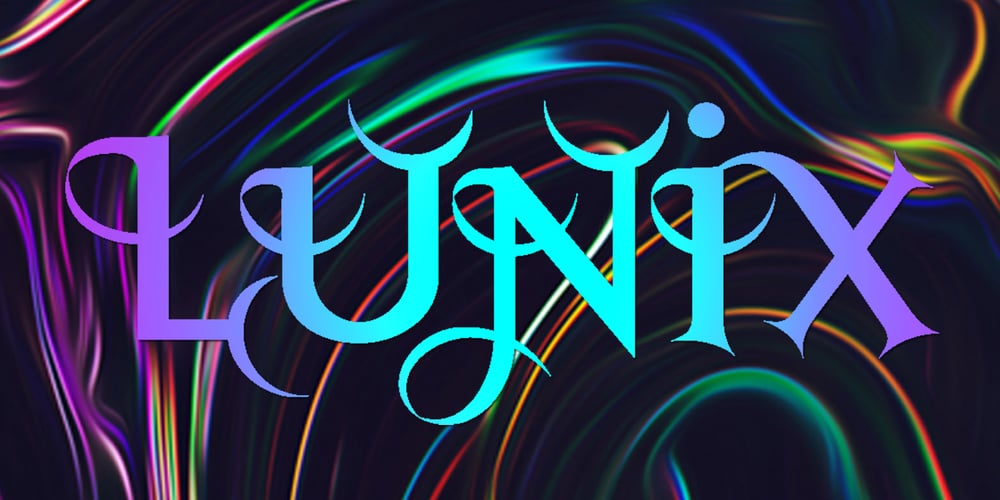
Lunix
Lunix font
Lunix Font Family was designed by Gert Wiescher and published by Wiescher Design. Lunix contains 4 styles and family package options. The basic idea behind Lunix was a half-moon-serif. Hence the name that is derived from “Luna” the ancient greek goddess of the moon. The serifs pretty soon developed their own life and started to grow and curl. Now all of a sudden the font became a very spiky affair. To make things worse, I designed a Small-Caps version that was even spikier. There are strange thoughts that come to my mind when I look at the font. Dracula, Nostradamus, barb wire, Punkrock, the thorn crown of Jesus, stiletto heels, switchblades and so on. Your spiky Gert Wiescher